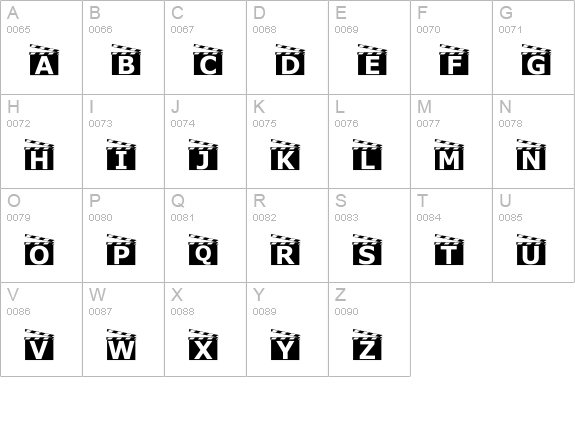
movieboard Font Details
Introducing Movieboard Font, a stunning and versatile typeface that will bring a touch of cinematic flair to your design projects. This unique font features bold and dynamic characters inspired by the world of film and entertainment. With its sleek and modern design, Movieboard Font is perfect for movie posters, title sequences, branding, and more. What's even better is that Movieboard Font is available for free download at FontsMarket.com. Yes, you heard that right - this amazing font can be yours at no cost, allowing you to elevate your designs without breaking the bank. Whether you're a graphic designer, filmmaker, or just someone who appreciates good typography, Movieboard Font is a must-have addition to your collection. Don't miss out on the opportunity to enhance your projects with this eye-catching font. Download Movieboard Font today and let your creativity shine!